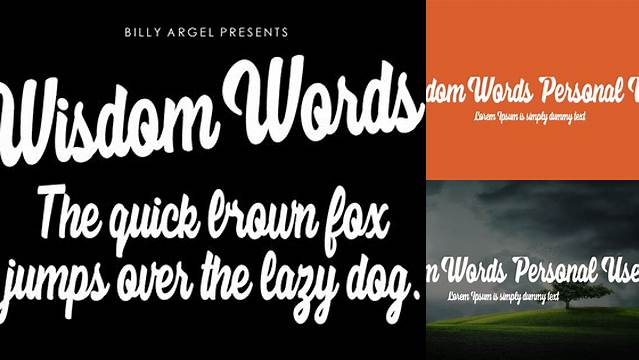
Wisdom Words Font: Free Download For Personal Use
Hey guys! Are you on the hunt for that perfect font to sprinkle a bit of wisdom and personality into your projects? Look no further! In this article, we're diving deep into the world of "wisdom words personal use font free download." We’ll explore everything from what makes a font truly shine to where you can snag some fantastic options without spending a dime. So, buckle up and let’s get started!
2. What Makes a Font a "Wisdom Word" Font?
So, what exactly qualifies a font as a “wisdom word” font? Well, it's all about the vibe, guys! These fonts often evoke feelings of sophistication, intellect, and timelessness. Think classic serif fonts like Times New Roman or Garamond, or even elegant script fonts that add a touch of grace. A good “wisdom word” font should be legible and versatile, suitable for a variety of applications. It should be the kind of font that makes you feel like you're reading something profound and meaningful, even if it's just a grocery list!
The characteristics of a 'wisdom word' font encompass readability, versatility, and an aura of sophistication. These elements combine to create a font that feels both timeless and impactful. When selecting such a font, consider the emotional response it elicits. Does it inspire confidence? Does it convey a sense of history? Does it feel authoritative yet approachable? These are key factors in determining whether a font truly embodies the essence of 'wisdom'.
4. Identifying Fonts Suitable for Personal Projects
When browsing through endless font libraries, how do you spot the perfect font for your personal projects? Start by considering the overall tone and style you're aiming for. Are you creating a whimsical birthday card or a sophisticated invitation? Different fonts will suit different occasions. Pay attention to the font's readability, especially if you're using it for body text. And don't be afraid to experiment with different combinations to see what works best!
To discern a font's suitability for personal projects, consider the project's intended tone, readability requirements, and aesthetic compatibility. A font that complements the project's overall message and design will enhance its impact. For instance, a playful, handwritten-style font might be perfect for a children's book, while a more formal serif font would be better suited for a wedding invitation. The key is to align the font's personality with the project's purpose.
5. Serif Fonts for a Classic Wisdom Look
Serif fonts, with their little decorative strokes at the end of each letter, often exude a sense of tradition and wisdom. Think of fonts like Times New Roman, Garamond, or Georgia. These fonts are perfect for projects that require a touch of elegance and authority. They're also highly legible, making them a great choice for longer texts.
Serif fonts, characterized by their distinctive strokes at the end of each letter, embody a classic aesthetic that often conveys a sense of tradition, authority, and wisdom. Fonts such as Times New Roman, Garamond, and Georgia are prime examples of this category, lending an air of sophistication and formality to any project. Their inherent legibility also makes them suitable for extended blocks of text.
To ensure optimal presentation and readability, it is imperative to test fonts across a range of devices and screen sizes. Fonts may exhibit variations in appearance on different displays, necessitating the optimization of designs to accommodate diverse viewing conditions and ensure consistent visual quality.
So there you have it, guys! Everything you need to know about finding and using a wisdom words personal use font free download. Now go forth and create something amazing! Remember, the right font can make all the difference in the world. Happy designing!